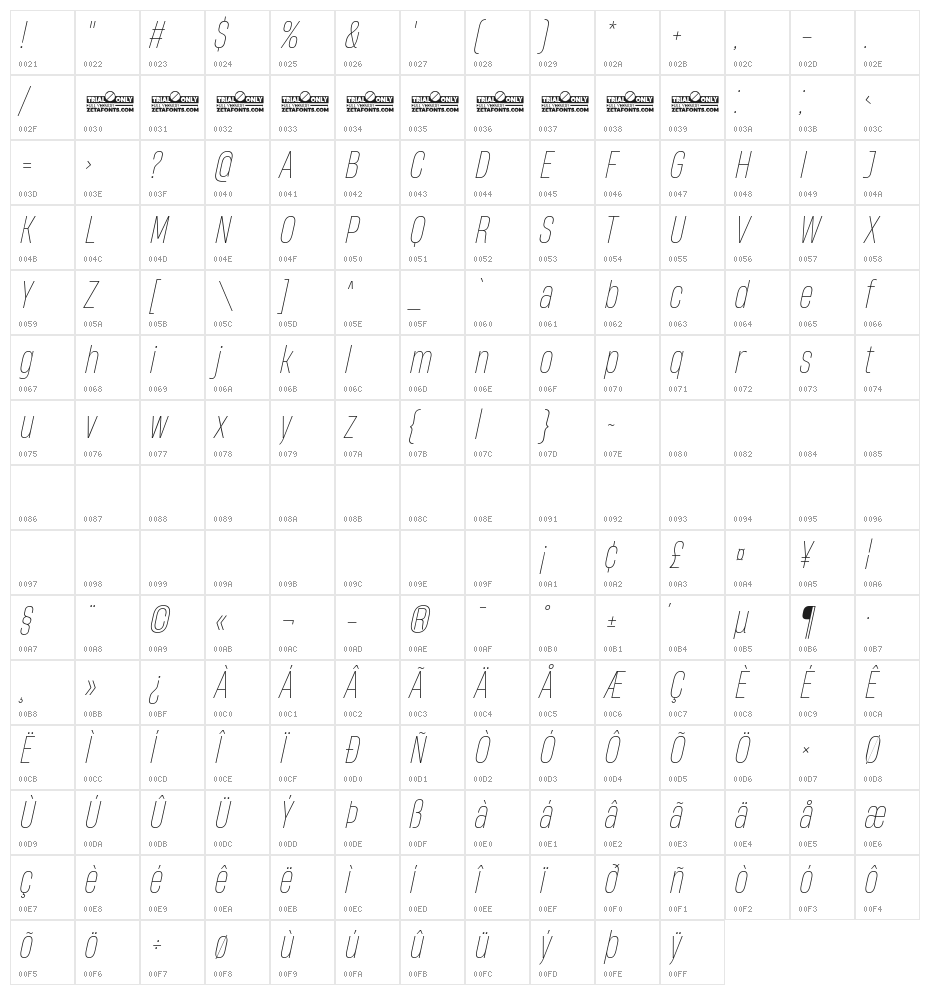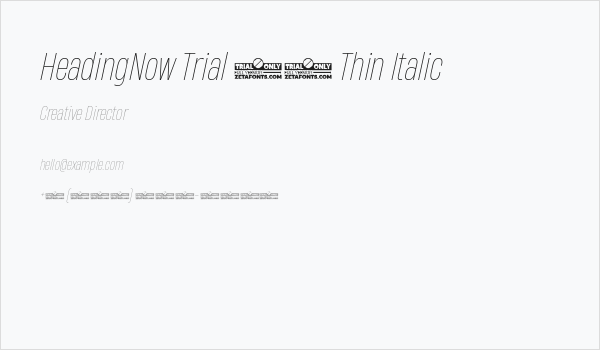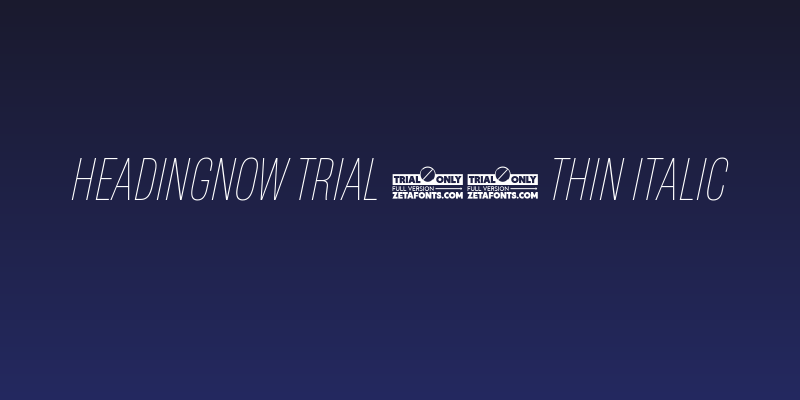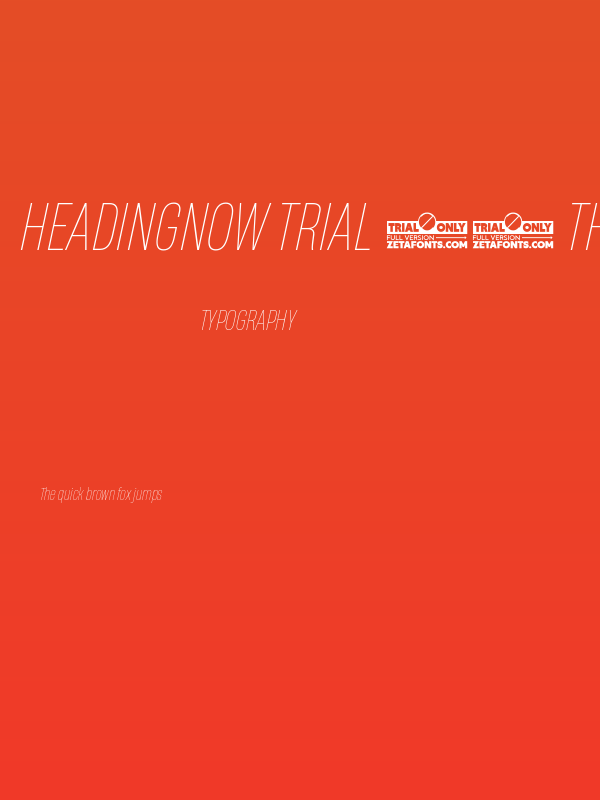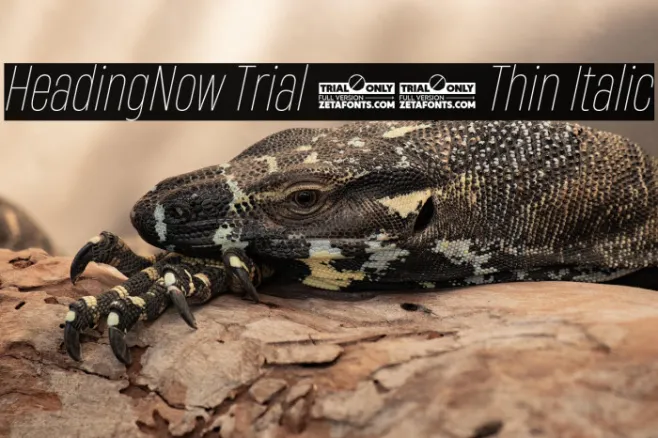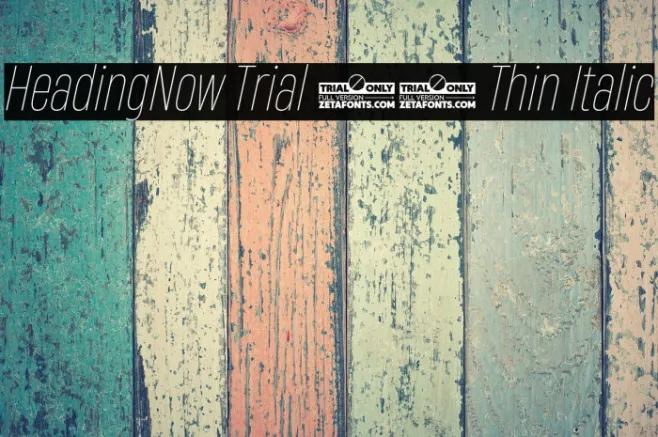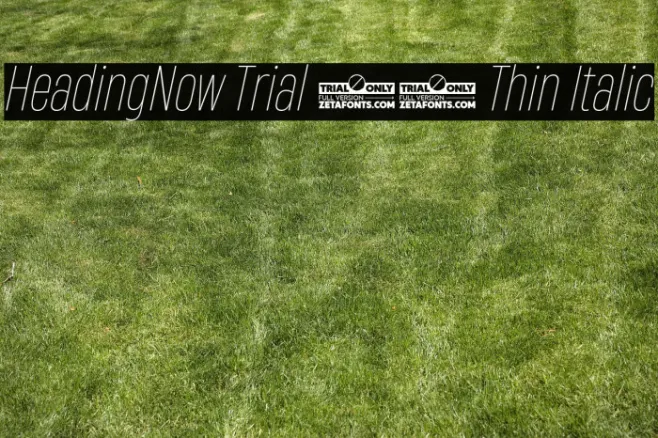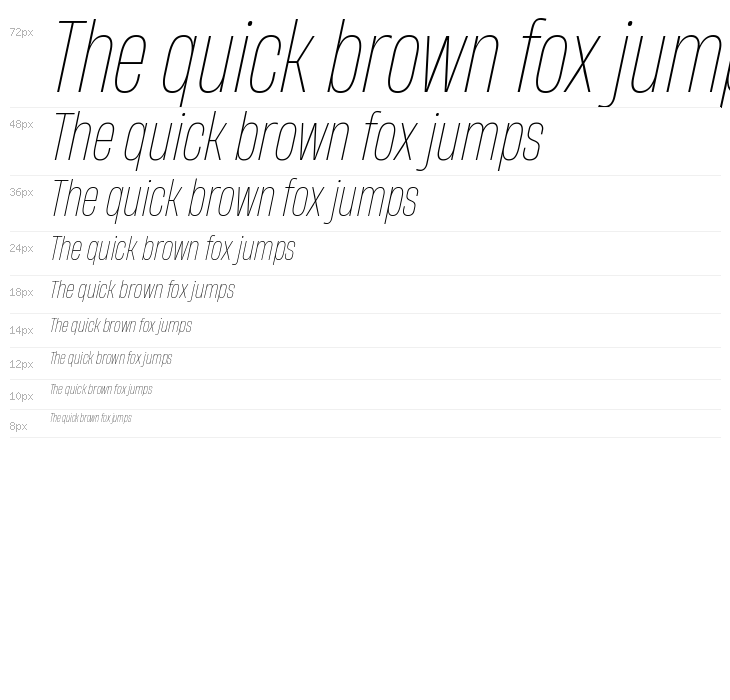
HeadingNow Trial 41 Thin Italic Font
HeadingNow Trial 41 Thin Italic Description
This font features a sleek and modern design with thin, elongated characters that convey elegance and sophistication. The italic style adds a dynamic and fluid touch, making it suitable for contemporary and stylish applications. The uppercase and lowercase letters maintain a consistent height and width, contributing to a harmonious appearance. The numerals and special characters are designed with the same thin strokes, ensuring uniformity across all elements. The overall aesthetic is clean and minimalistic, ideal for projects that require a refined and polished look.
| Proposed Projects | Ideal for fashion magazines, luxury branding, modern websites, and elegant invitations. |